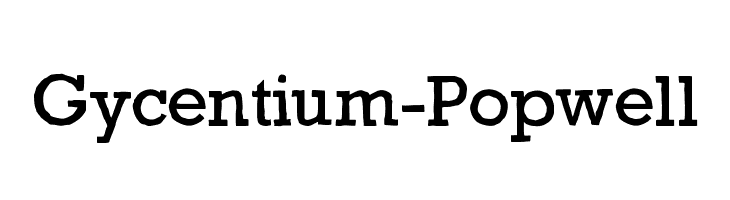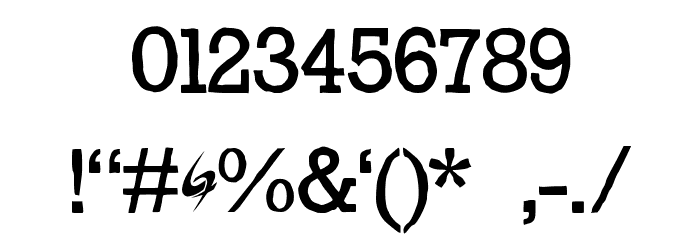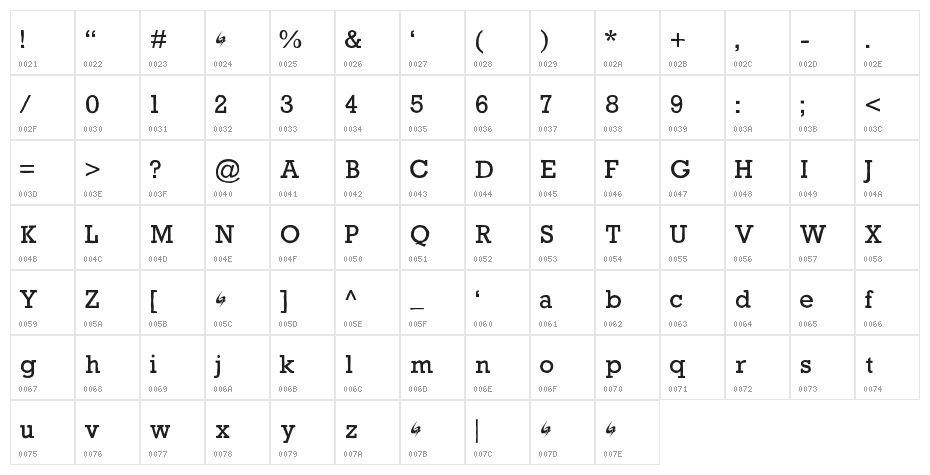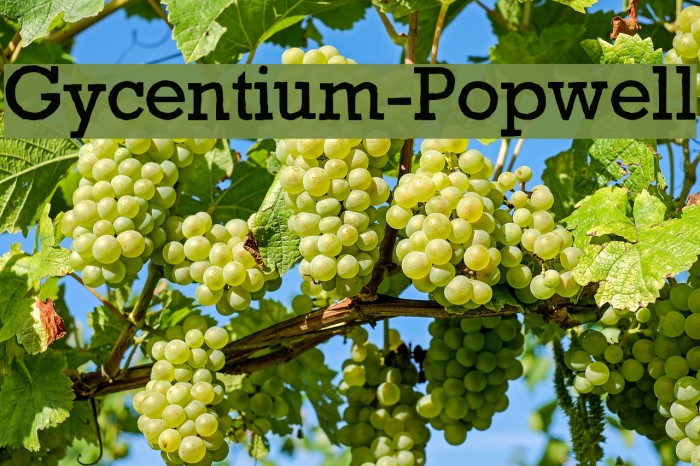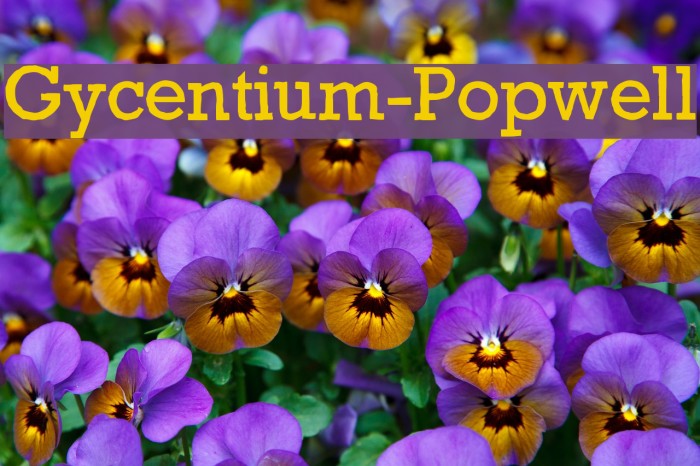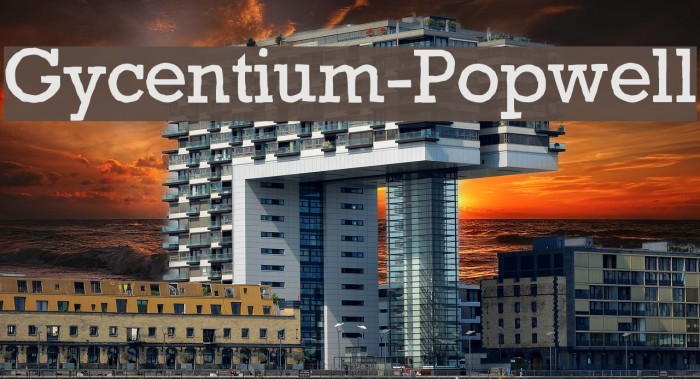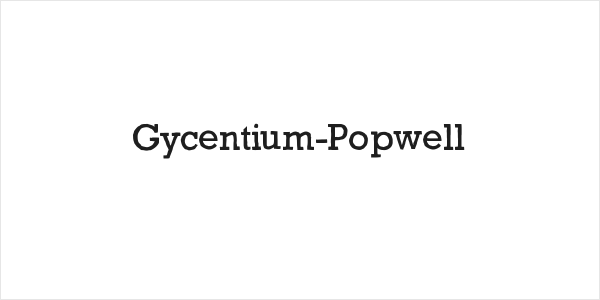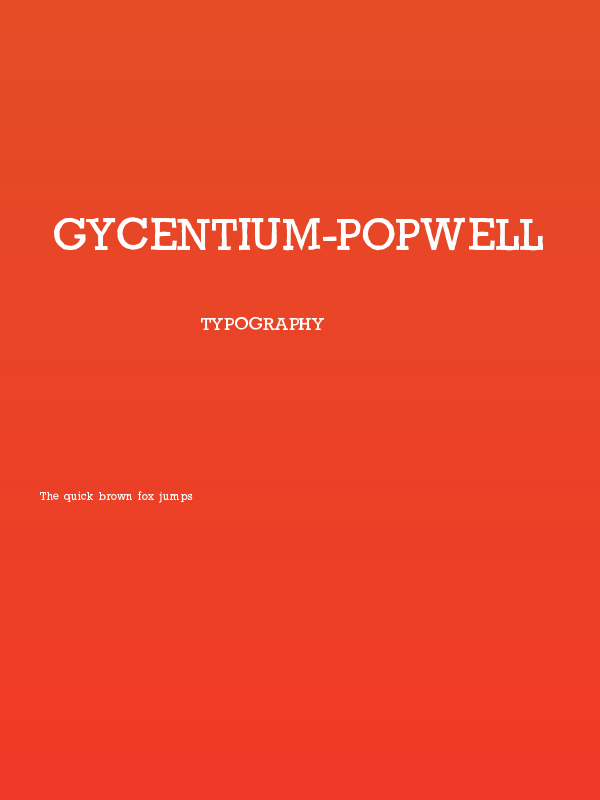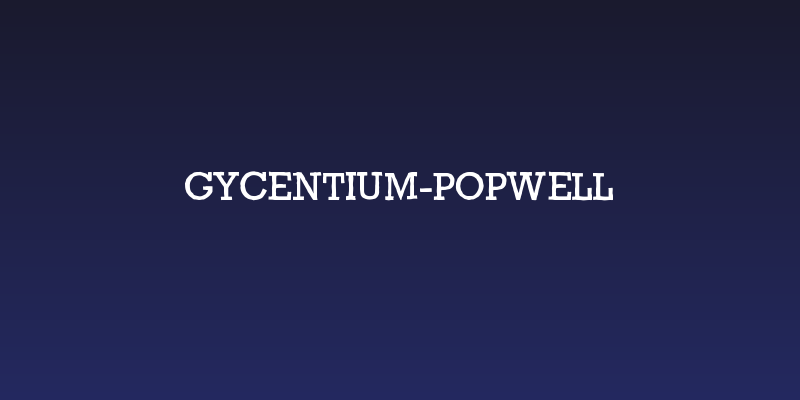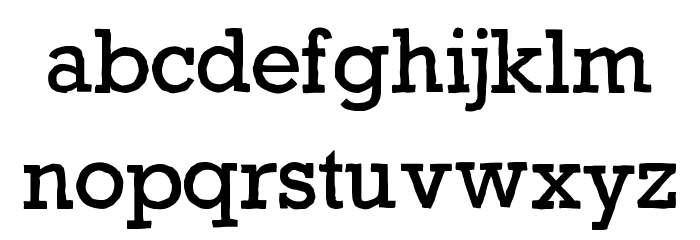
Gycentium-Popwell Font
Gycentium-Popwell Description
This font features a bold and robust design with a classic serif style. The characters exhibit a strong presence with thick strokes and pronounced serifs, creating a sense of authority and tradition. The uppercase letters are particularly striking, with a uniform height and consistent spacing that enhances readability. The lowercase letters maintain a harmonious balance with the uppercase, offering a slightly more rounded appearance that adds a touch of softness to the overall design. The numerals are clear and easily distinguishable, making them suitable for various applications. Special characters are well-integrated, maintaining the font's cohesive aesthetic. This font's strong contrast between thick and thin strokes adds to its legibility and visual appeal.
| Use Case | Headlines, Logos, Editorial Design |
| Proposed Projects | Ideal for editorial design, book covers, branding, and signage where a traditional and authoritative look is desired. |